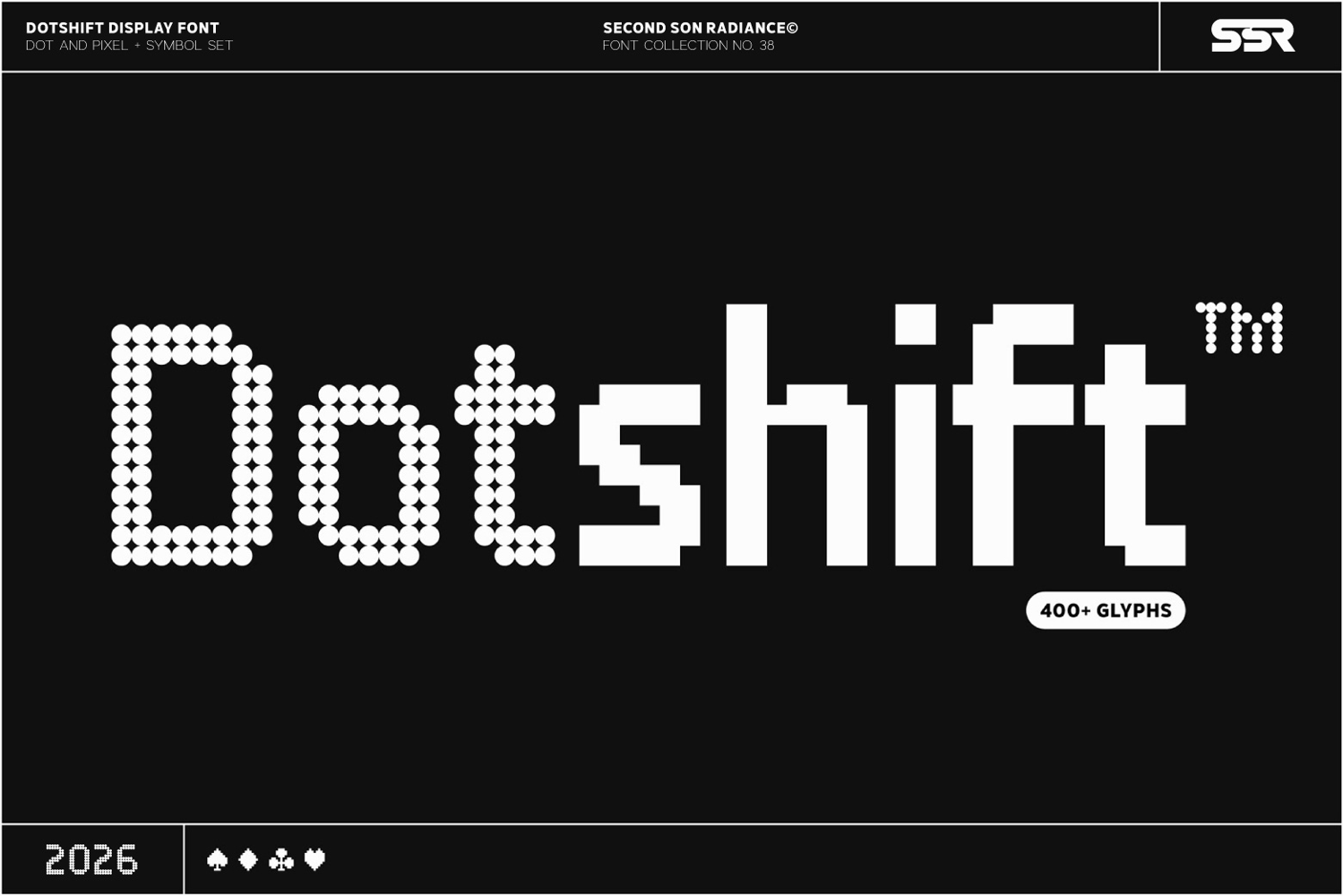
SS Dotshift - Dot and Pixel
Dotshift is a display font with dot and pixel style, this font including multilinguals and symbols on each styles too. Lives up to its name, Dotshift is expected to shift from dot style into pixel style easily. Crafted with love and precision, ensuring versatility across various applications made this font looks perfect for your modern digital and print applications, such as modern branding, logo design, headlines, posters, digital displays, and any project requiring a contemporary and futuristic eye-catching font.
• Basic Latin A-Z and a-z
• Punctuation
• Alternates
• Opentype Features
• Symbol
• Multilanguage Support